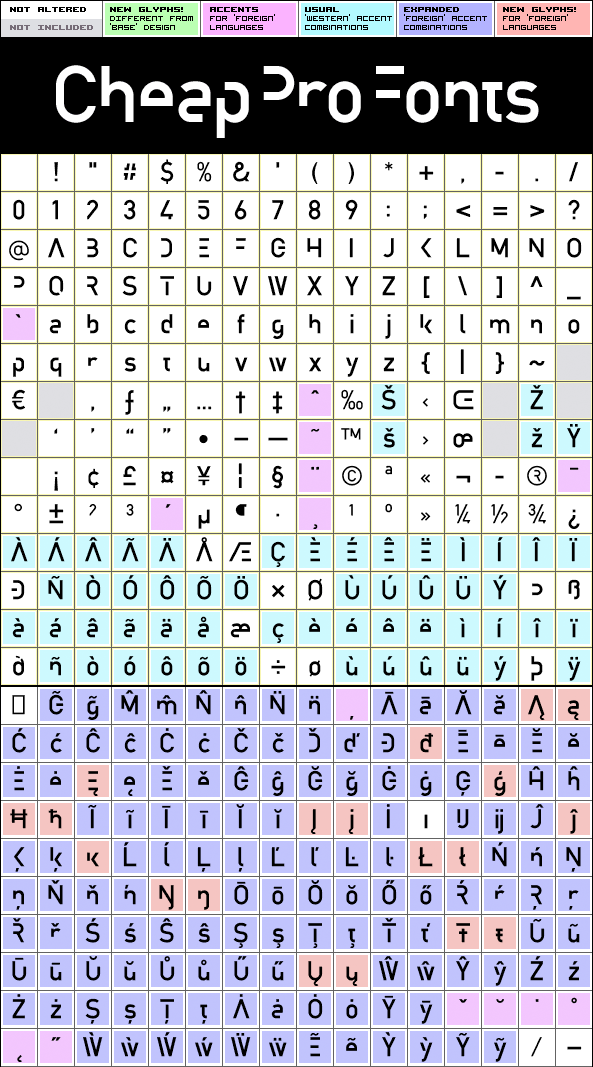
DINfun Pro Missing
DINfun Pro Missing by Roger S. Nelsson
379 glyphs!
632 class kernpairs
= 12027 kerning pairs
A stylized variant of the classic DIN 1451 Mittelschrift - with large chunks of the letters chopped away. This was a fun experiment in finding out how much of a letter I could remove and still comfortably recognize the letter :)
DINfun Pro Missing is a professionally reworked font that contains an extended character set for setting text in 65 languages requiring more than the basic A-Z!